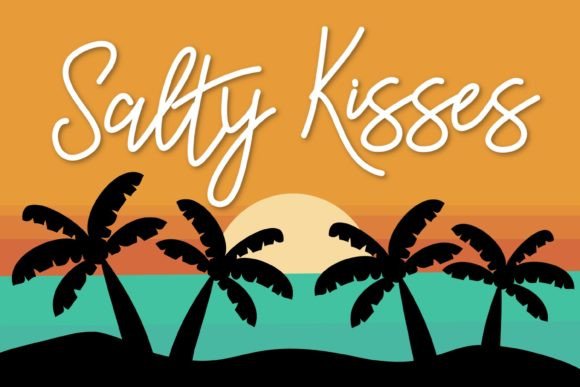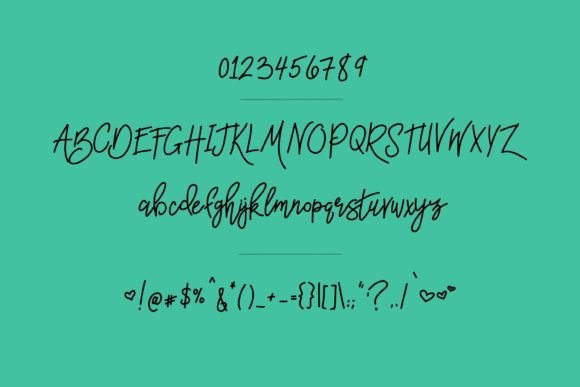
Salty Kisses Font: Breezy Handwritten Script for Summer Branding
About the Salty Kisses Font
Crafted with precision, the Salty Kisses Font is ready to bring your ideas to life. Salty Kisses is a stylish handwritten font inspired by the breezy, carefree vibes of a tropical getaway. With its smooth curves and playful flow, this font is perfect for beach-themed designs, invitations, logos, and more. It adds a touch of warmth and a personal feel to any project. Ideal for summer events, destination weddings, or anything that needs a relaxed, yet elegant touch.
Salty Kisses Font Usage Examples
Salty Kisses Font Example